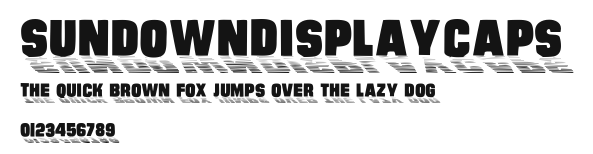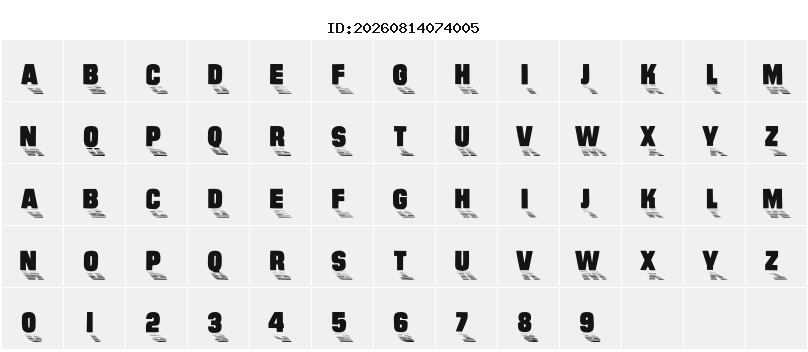
About SundownDisplayCaps.ttf
SundownDisplayCaps.ttf is a modern, elegant sans-serif font designed for ultimate readability and visual harmony. Perfect for branding, headlines, web design, and print materials.